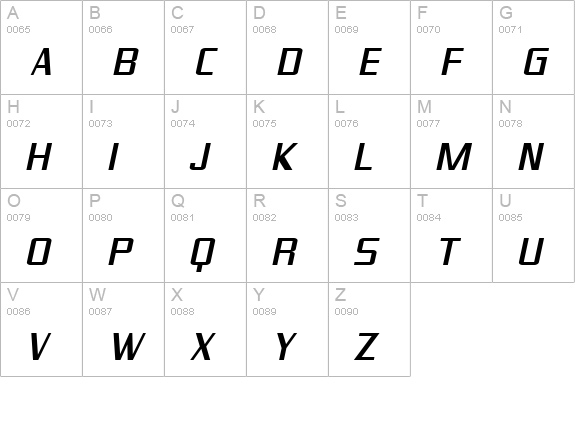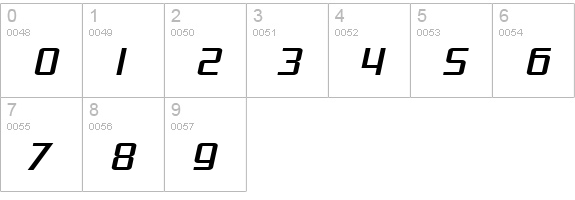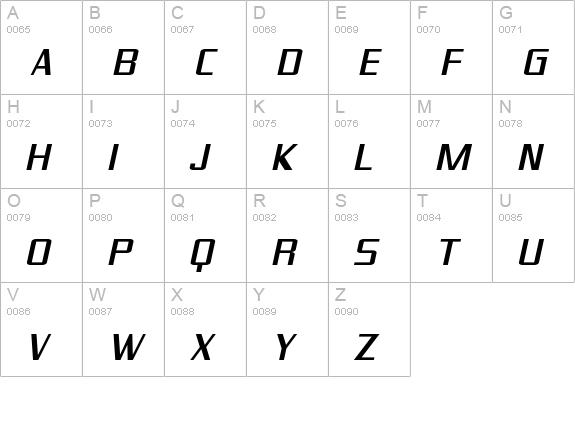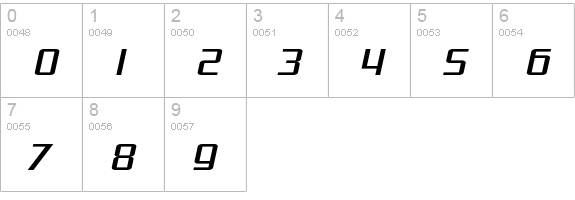
SF Proverbial Gothic Extended Oblique Font Details
SF Proverbial Gothic Extended Oblique is a distinctive, extended-width, italic variant in the SF typeface family \xE2\x80\x94 well suited to design and typography projects.
SF Proverbial Gothic Extended Oblique font is a beautifully designed typeface that exudes a sense of mystery and elegance. With its elongated and slanted letterforms, this font captures the essence of gothic aesthetics while adding a modern twist. The carefully crafted curves and sharp angles of SF Proverbial Gothic Extended Oblique font make it a versatile choice for a wide range of design projects. Whether used in headlines, logos, or body text, this font commands attention and creates a bold statement. What sets SF Proverbial Gothic Extended Oblique font apart is that it is freely available to download at FontsMarket.com. This means that designers and enthusiasts alike can effortlessly access this captivating typeface and incorporate it into their creations without any cost. With its unique and expressive character, SF Proverbial Gothic Extended Oblique font adds a touch of sophistication and intrigue to any design. Its slanted and extended letterforms give it a distinct personality, making it an excellent choice for projects that require a touch of drama and flair. Whether you want to create stunning posters, eye-catching banners, or captivating book covers, SF Proverbial Gothic Extended Oblique font is the ideal choice. Its versatility and visually striking appearance make it a valuable asset for both professional designers and aspiring creatives. Download SF Proverbial Gothic Extended Oblique font for free at FontsMarket.com and unleash your creativity. With this font at your disposal, you have the power to transform your designs and captivate your audience with its alluring and enigmatic charm.